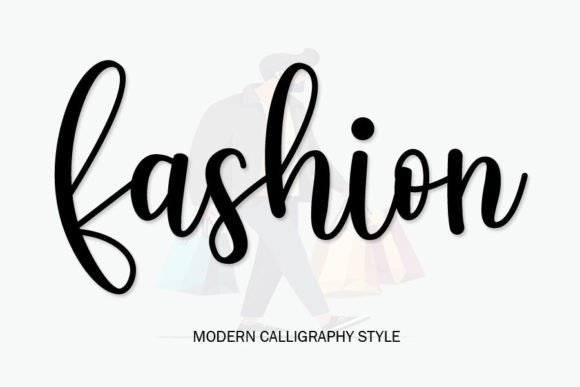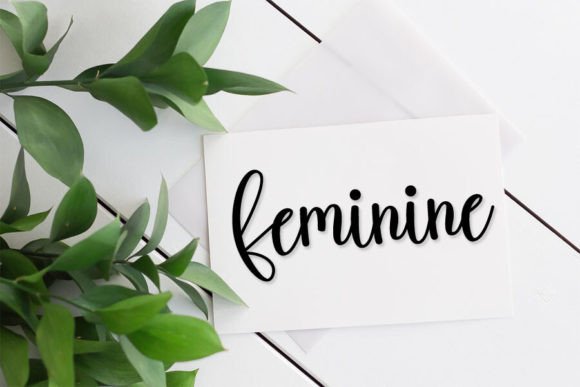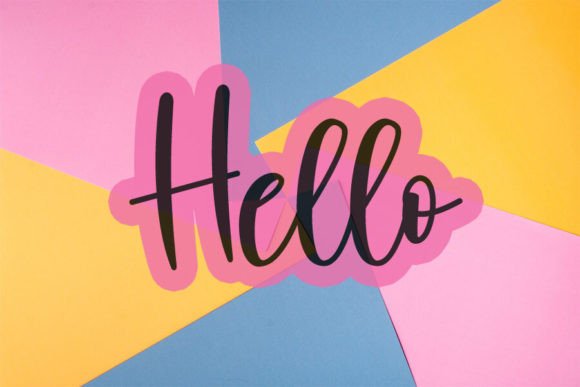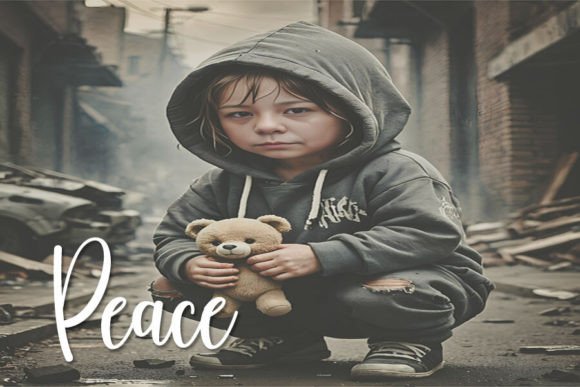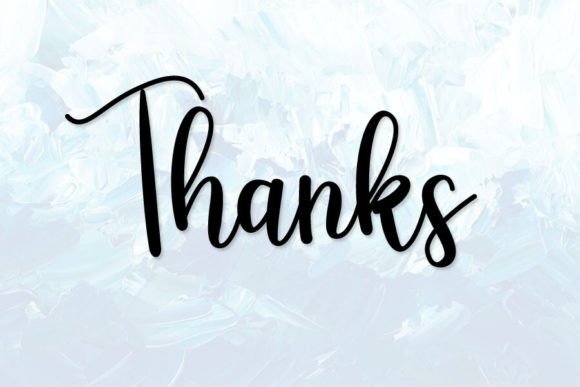
Enter Fashion Font, a sweet and friendly handwritten font that’s perfect for adding a touch of elegance to any design. Its fresh and casual vibe makes it ideal for writing wedding invitations, cards, and more. What sets Fashion Font apart is its versatility – it’s just as suitable for formal events as it is for casual gatherings.
As a designer, having access to high-quality fonts like Fashion Font can be a game-changer. With its unique charm and versatility, Fashion Font is a valuable addition to any design toolkit. Whether you’re a seasoned pro or just starting out, Fashion Font is sure to inspire your next creative project.
Fashion Font Key Features
- Unique Characteristics: Fashion Font features a unique blend of modern and vintage elements, with elegant curves and precise lines that evoke the glamour of high-end fashion.
Designer Review: Fashion Font
Overall, I think Fashion Font is a decent option for designers who want to add a touch of elegance to their projects. ✨ The font’s clean lines and modern aesthetic make it perfect for fashion, beauty, and lifestyle brands. The font’s versatility also makes it suitable for a wide range of applications, from logos to packaging.
One of the things that really stands out about Fashion Font is its extensive character set. ✨ It includes a wide range of glyphs, ligatures, and swashes that can help designers add a personal touch to their work. Additionally, the font is highly customizable, with options for adjusting font sizes, line heights, and letter spacing.
While Fashion Font is a solid choice, there are a few limitations to consider. ⚠️ The font’s design can feel a bit generic at times, lacking the unique character that some designers might be looking for. Additionally, the font’s licensing terms can be restrictive, limiting its use in certain contexts.
Designers’ Considerations
- Extensive character set with ligatures and swashes
- Highly customizable with options for font sizes, line heights, and letter spacing
- Perfect for fashion, beauty, and lifestyle brands
- May feel generic at times
Practical Application Guide for Fashion Font
Some common use cases for Fashion Font include:
Creating fashion labels and logos.
Designing fashion magazines and catalogs.
Creating social media graphics and advertisements.
Tips to get the most out of Fashion Font include:
Experimenting with different font sizes and colors.
Combining Fashion Font with other fonts for a unique look.
Using Fashion Font for headings and titles to add a touch of elegance.
Alternatives to Fashion Font for Designers
Great Vibes is a beautiful, elegant script font that is perfect for designers who want to add a touch of sophistication to their projects. It is ideal for use in logos, invitations, and other design elements where a handwritten feel is desired. Great Vibes is similar to Fashion Font in its flowing, cursive style, but it has a more refined and polished look.